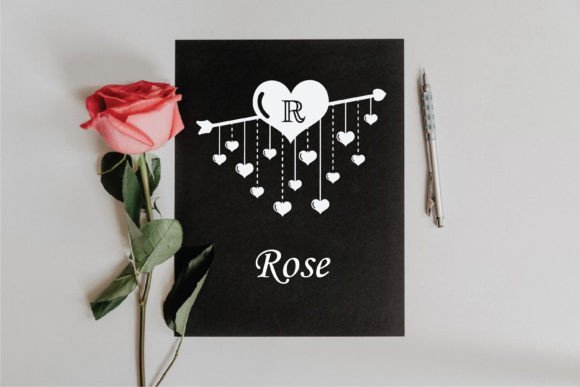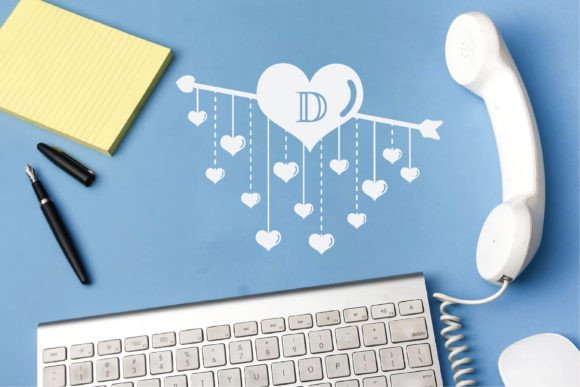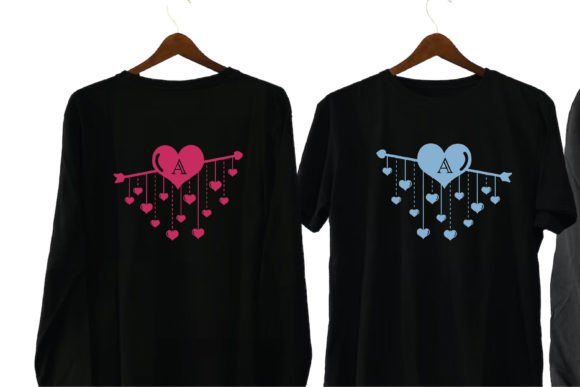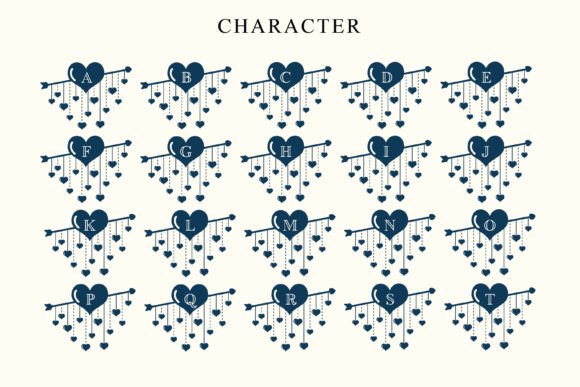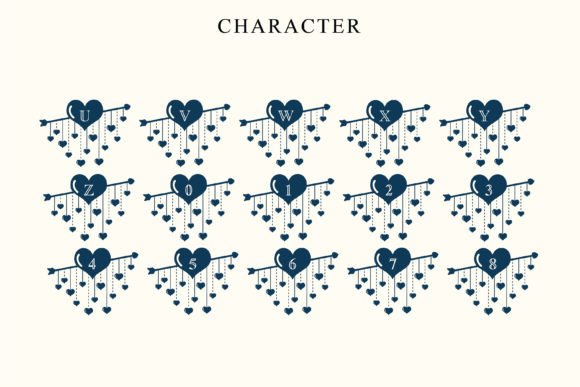
Introduction to Love Heart Monogram Font
Love Heart Monogram is a fresh and highly detailed decorative font.
Add this beautiful-looking font to any of your favorite love letters, or design ideas, and you’ll be surprised at the results This lovely monogram font is suitable for a wide range of applications.
Key Features of Love Heart Monogram Font
Why Choose Love Heart Monogram Font?
Love Heart Monogram Font offers exceptional quality and versatility, making it a valuable addition to your design toolkit. Whether you’re creating for personal projects or commercial use, Love Heart Monogram Font delivers professional results.